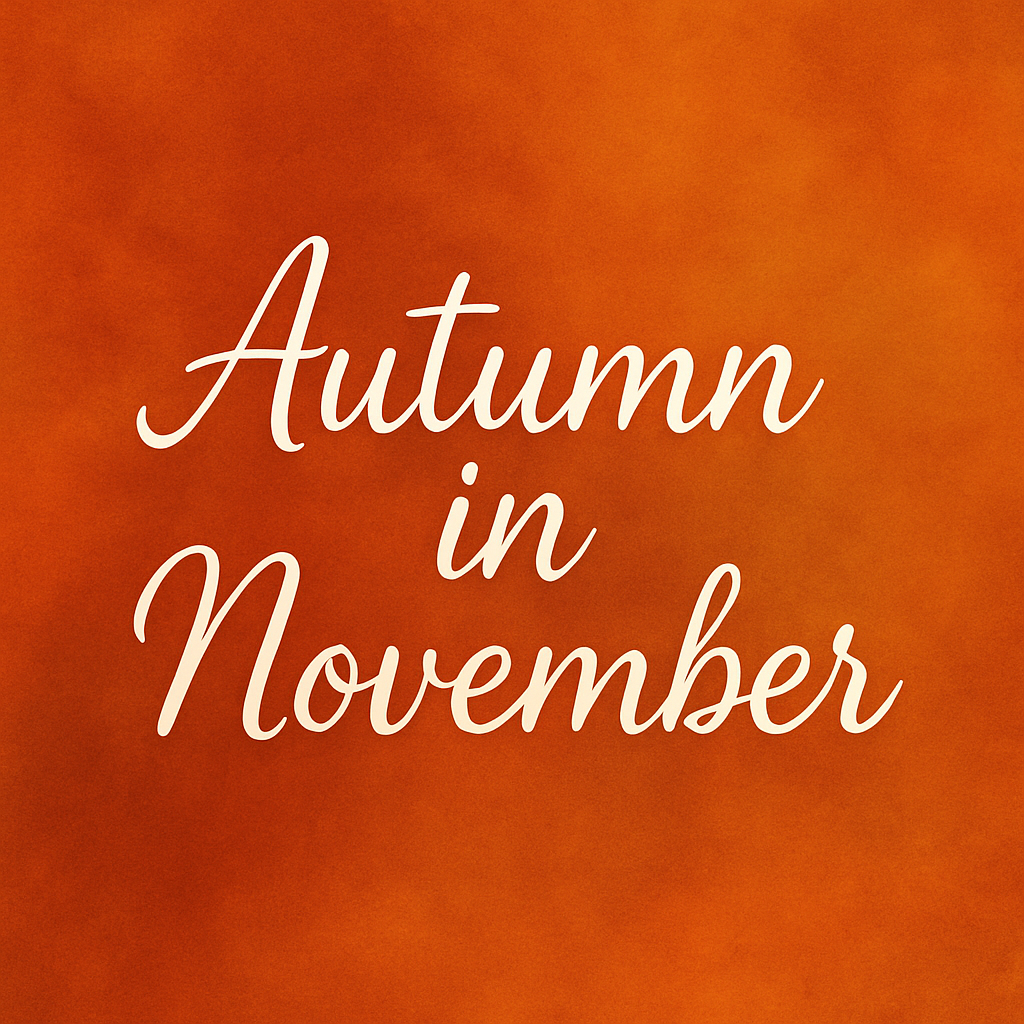
Autumn in November Font: Introduction
Typography requires more than just selecting letters, as it serves as a means to convey both aesthetic qualities and build atmospheres, as well as display narratives without verbal components. Autumn in November font effectively delivers all design requisites in a particularly strong way. Its handwritten curves alongside organic strokes bestow both nostalgia and charm and a slight heartwarming sensation to projects.
Autumn in November creates professional resonance combined with whimsical charm to enhance personal wedding invitations and brand identities along with enthusiastic seasonal designs. This detailed piece provides an extensive exploration of the font’s historical background and exclusive characteristics together with its design purposes and suitable alternatives as well as a complete overview of its status as an elegant modern script typeface.
Overview: What is the Autumn in November Font?
Autumn in November represents a handwritten script font which demonstrates the artistic character and emotional qualities of traditional calligraphy penmanship. Many people connect this font with romantic and seasonal concepts and feminine themes because it shows authentic imperfections while keeping its natural and flowing design.
As a creation of Misti’s Fonts which is recognized globally for its script fonts Autumn in November represents an excellent option for designing projects which demand elegance together with warmth.
Quick Font Facts:
- Designer: Misti’s Fonts
- Style: Handwritten, Script, Calligraphy
- Use Cases: Wedding stationery, quotes, social media graphics, logos, product packaging
History and Background of Autumn in November Font
The independent type designer Misti Hammers is responsible for creating Autumn in November and consistently produces whimsical and feminine script fonts. Misti’s Fonts releases dozens of typefaces at her studio that designers together with creatives along with small business owners and worldwide users select for their work.
The typeface Autumn in November appeared on the market because an increasing number of users wanted curving script fonts that created feelings of familiarity and charm. The name Autumn in November combines autumn-themed refinement with handwritten authenticity to create an aesthetic which designers and brands find highly desirable in their projects.
A surge of popularity hit the font when it appeared on DaFont, FontSpace and Creative Fabrica downloadable platforms leading to a rapid accumulation of thousands of download requests. Professional designers choose it along with beginners because of its adaptable stylish design elements.
Key Features of Autumn in November Font
What sets Autumn in November apart from other script fonts is its blend of authentic calligraphy with practical design functionality. Here are its most defining features:
1. Natural Handwritten Flow
The strokes of Autumn in November mimic the natural rhythm of handwriting. The curves are soft, the spacing is fluid, and the terminals are gently rounded—giving it a lived-in, personal feel.
2. Elegant Ligatures
Autumn in November includes stylistic ligatures that enhance visual flow between letters. This feature is particularly important in script fonts, as it ensures smooth word construction and better readability.
3. Uppercase and Lowercase Harmony
Both the uppercase and lowercase letters are designed to work harmoniously together. The uppercase characters are slightly ornate, making them perfect for initials or headings, while the lowercase letters maintain legibility and rhythm.
4. Bonus Characters
Some versions of the font also include swashes and alternate characters, which offer additional flair—ideal for signature logos and decorative headings.
5. Multilingual Support
Depending on the version you download or purchase, Autumn in November supports extended Latin characters, allowing usage in various European languages.
Practical Applications of Autumn in November Font
One of the key reasons for this font’s popularity is its versatility across multiple creative domains. Let’s look at some of its most common use cases:
1. Wedding and Event Stationery
Autumn in November is a top choice for:
- Wedding invitations
- RSVP cards
- Save-the-date designs
- Table numbers and seating charts
Its elegant strokes convey romance and class, making it ideal for special occasions.
2. Branding and Logo Design
Lifestyle brands, especially those in fashion, cosmetics, and artisan products, often use Autumn in November for:
- Signature-style logos
- Product packaging
- Business cards
- Social media headers
This typeface offers a human touch to your heartfelt quote creation in addition to building feminine brands and preparing wedding materials. Autumn in November stands ready to continue being a fundamental elegant typeface choice because of its increasing popularity alongside its carefully thought-out design.